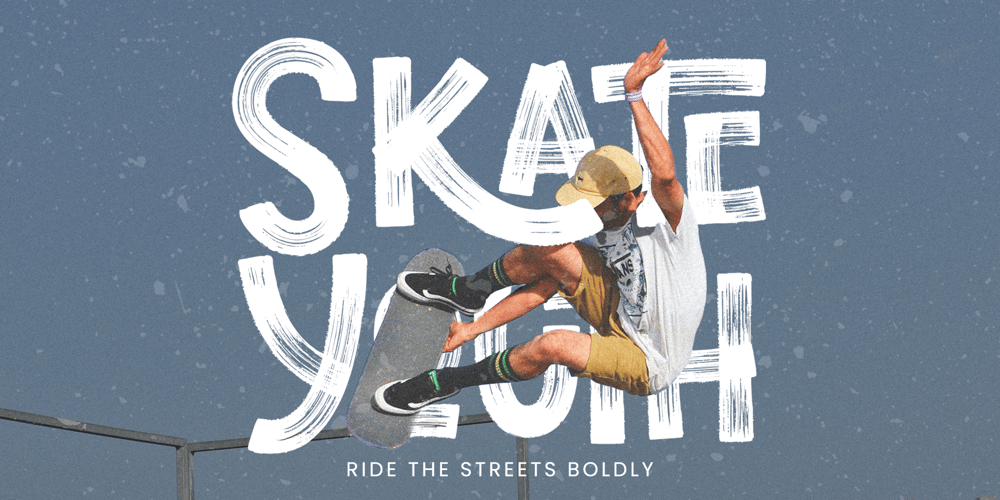
Nidella Dry Brush Pro Font Family was designed by Virgiawan Listanto and published by Inviline. Nidella Dry Brush Pro contains 1 styles and family package options. Dry Brush Display Sans is a striking, hand-drawn typeface that combines elegance and spontaneity. Ideal for promotional materials, social media, and creative projects, it adds an artistic edge that captivates and engages audiences.